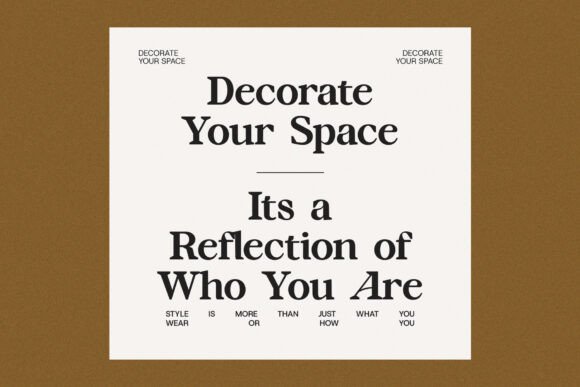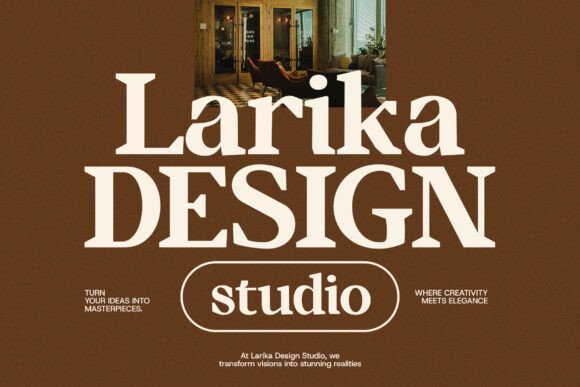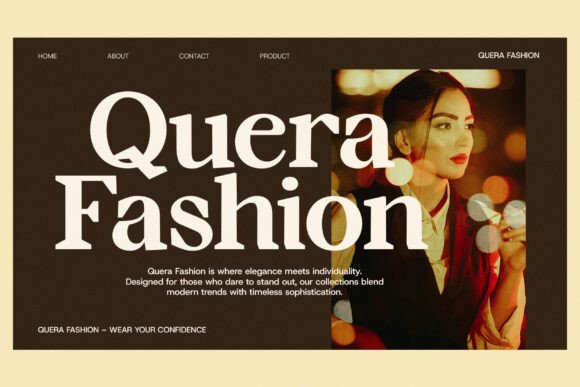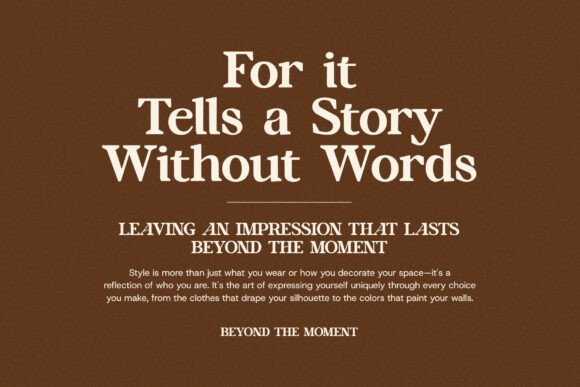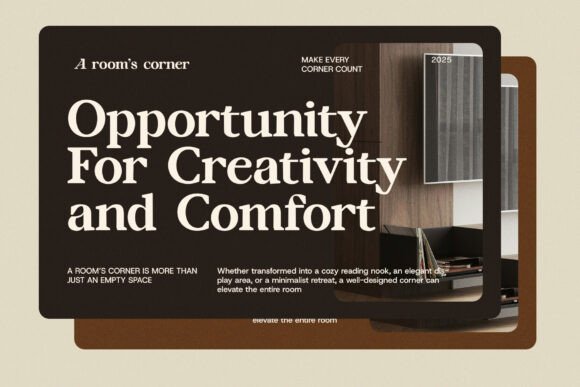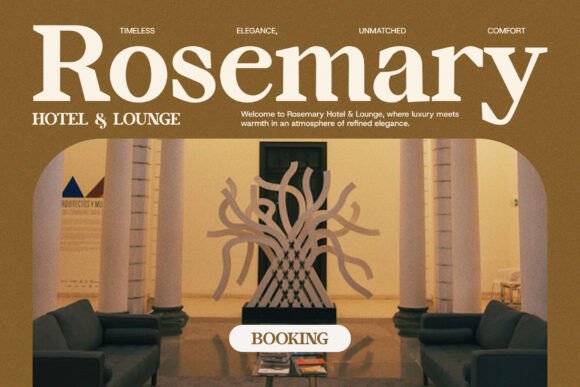
Introduction to Mogaly Font
Have you ever stared at a blank page, wondering how to bring your creative vision to life? The moment of truth arrives when you need a font that exudes sophistication and elegance. That’s where the Mogaly Font comes in – a game-changing design resource that’s about to revolutionize your next project.
Whether you’re a seasoned designer or just starting out, the Mogaly Font is an invaluable addition to your toolkit. Its stunning blend of modern sophistication and timeless elegance makes it perfect for a wide range of applications, from luxury branding to stylish magazines and upscale websites. With its carefully crafted letterforms, Mogaly brings a sense of refinement and class to every design it touches.
Key Features of Mogaly Font
- High-quality, unique font design perfect for creative projects
- Designed to be a unique design resource for modern and creative projects
Honest Review: Mogaly Font
I recently came across the Mogaly Font and was excited to dive in and see what it had to offer. As a designer, I’m always on the lookout for new design resources that can elevate my creative projects.
One of the standout features of the Mogaly Font is its ability to be used with a transparent background. This opens up a world of creative possibilities, allowing designers to get really creative with their designs.
What works well: ✨ The Mogaly Font is a high-quality, versatile font that’s perfect for a wide range of design projects.
Some limitations: ⚠️ The font may not be suitable for all design styles or applications, and the transparent background feature may require some additional design work to get the look just right.
Overall, I’m really impressed with the Mogaly Font. It’s a great addition to any designer’s toolkit, and I’m excited to see how it can be used in future creative projects.
- Unique, modern design
- Works well with transparent backgrounds
- High-quality, versatile font
Mogaly Font
Tips for Getting the Most Out of Mogaly Font
To get the most out of Mogaly Font, be sure to use it with a transparent background to create a clean and professional look. You can also experiment with different font sizes and colors to create unique and eye-catching designs.
The Mogaly Font is ideal for a variety of creative projects, including logos, graphics, presentations, and documents. Its high-quality design and transparent background make it perfect for use in business and personal projects alike.